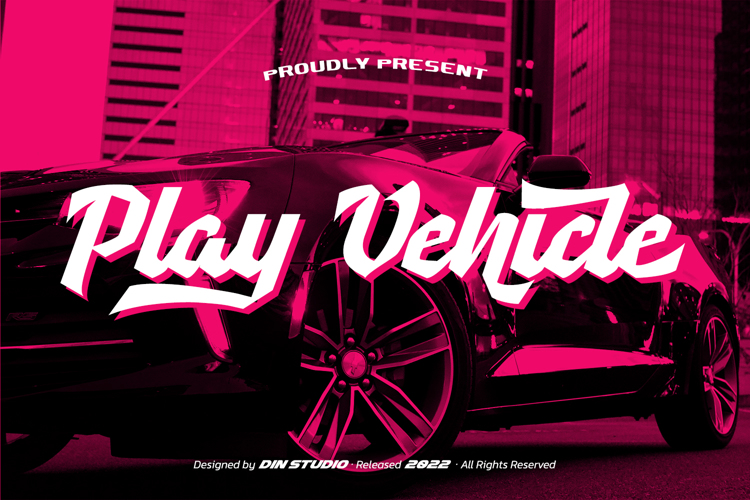
Play Vehicle Font
Thin Style
Product Description :
Play Vehicle is a racing-themed display font to provide you a stylish, brave, modern design which is visually eye-catching because of its variations of thick and thin letters. Through its developed legibility, it is possible to use the font in titles or text contents.
Features include:
• Stylistic Sets
• Ligatures
• Swashes
• Multilingual Supports
• PUA Encoded
• Numerals and Punctuations